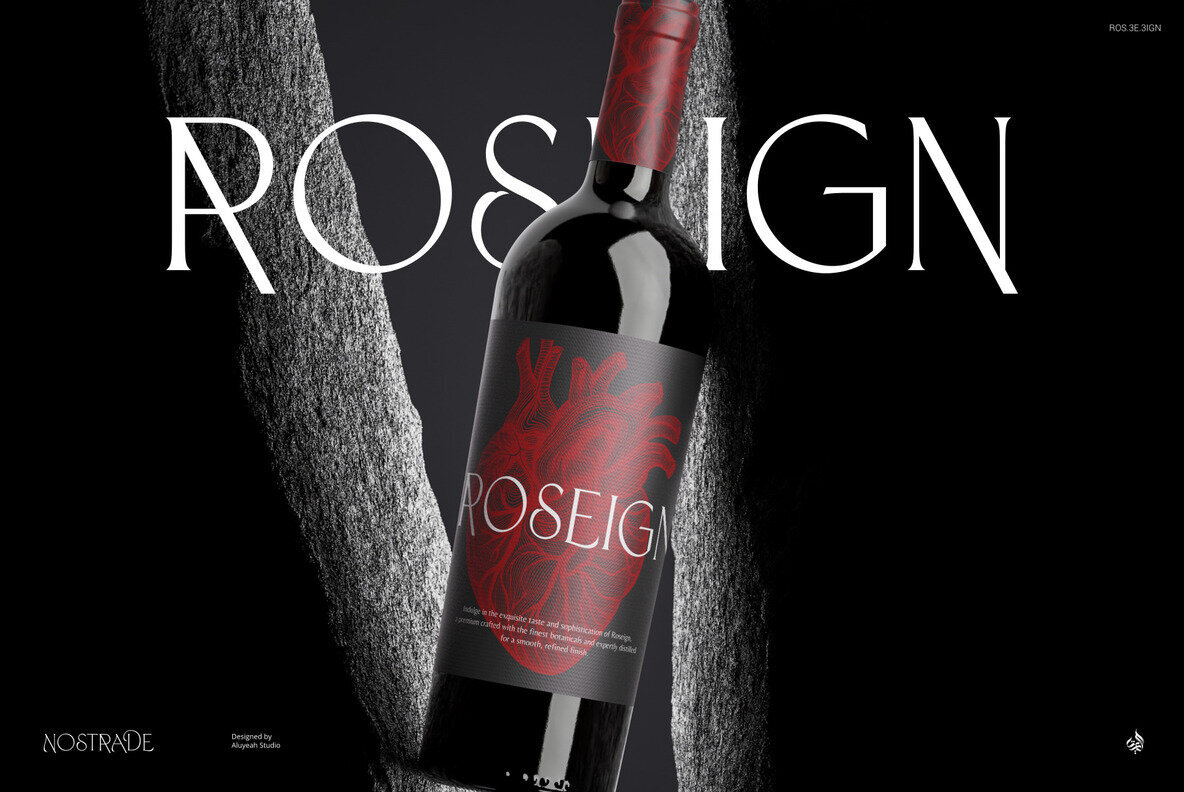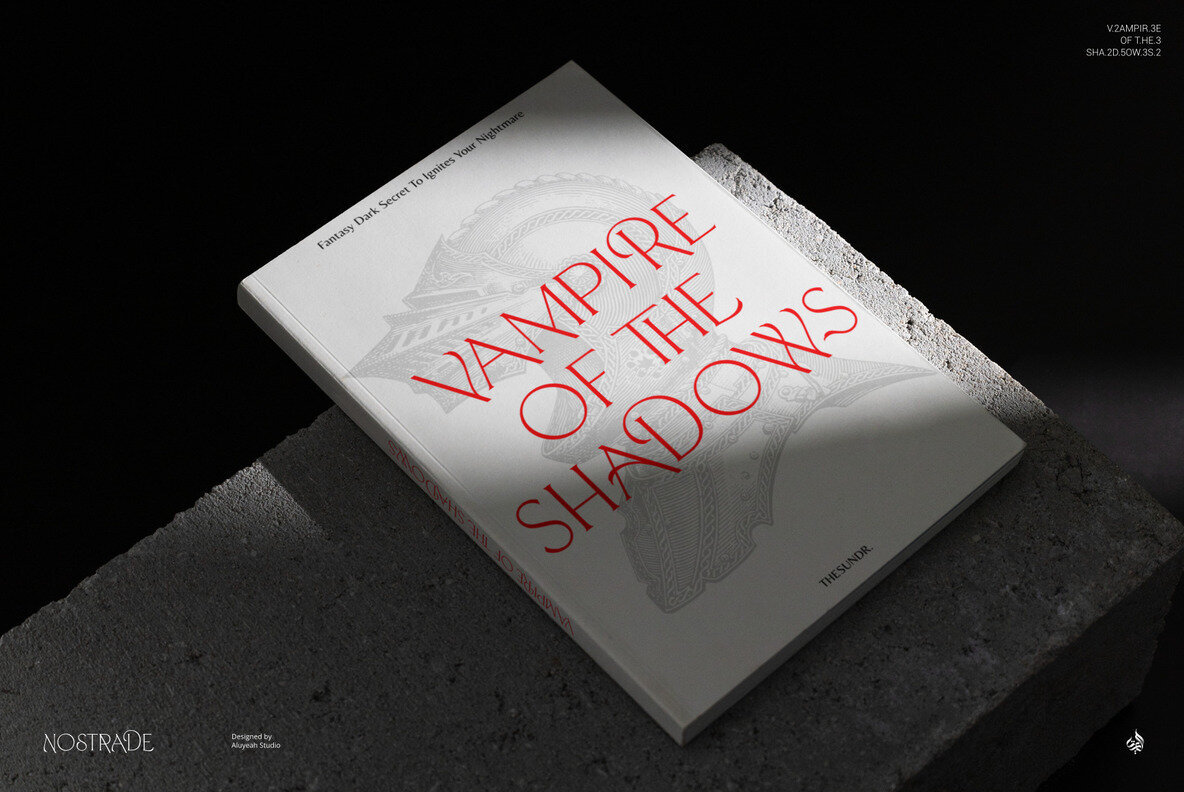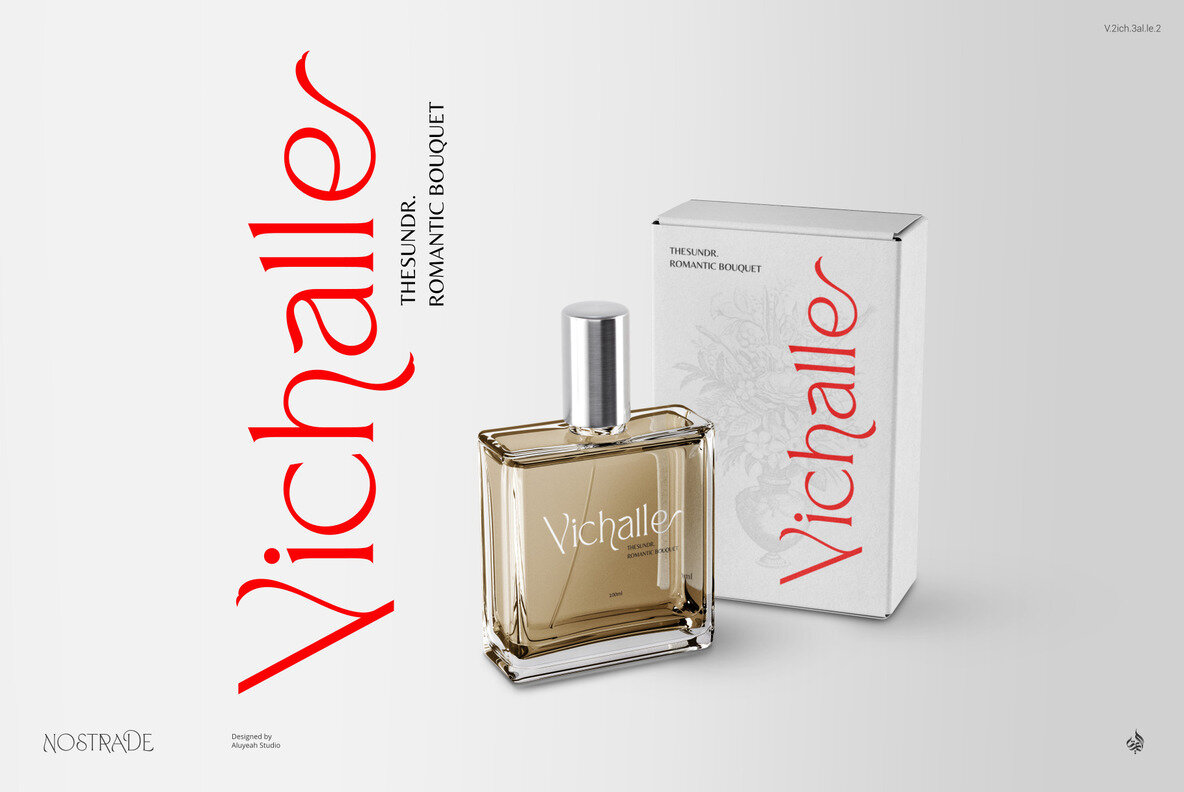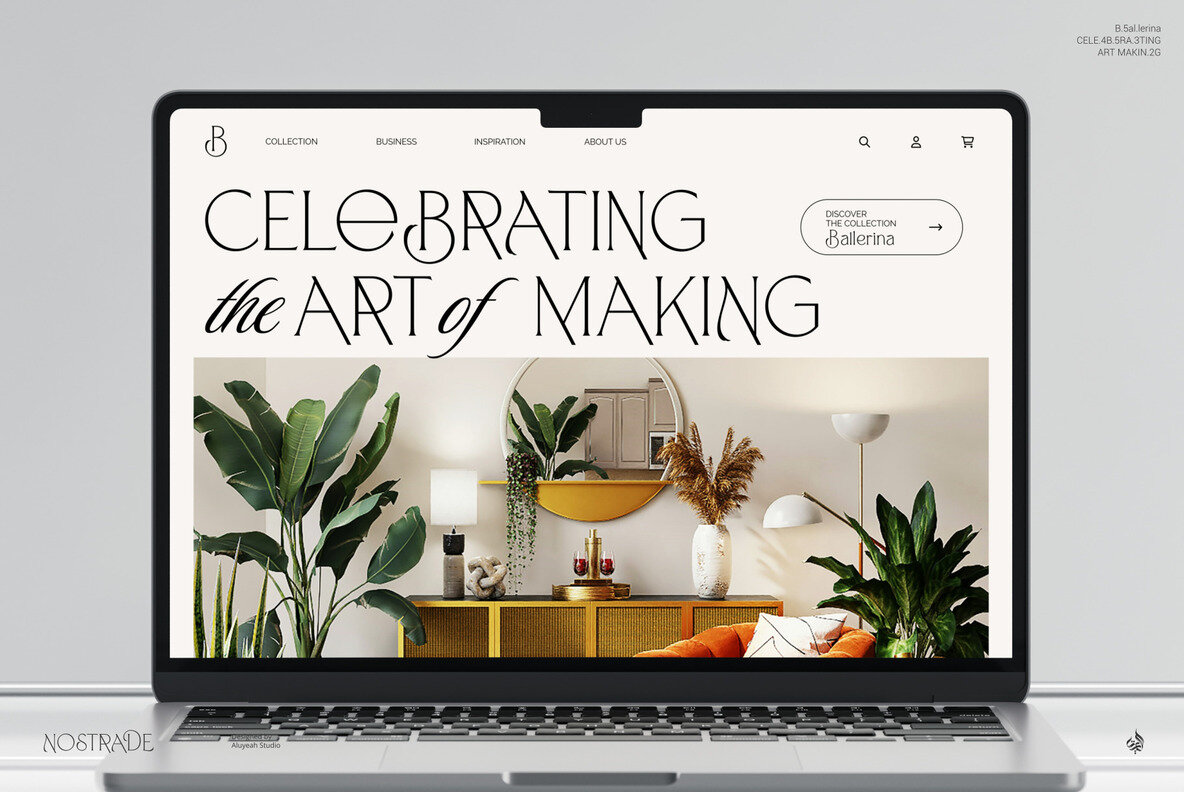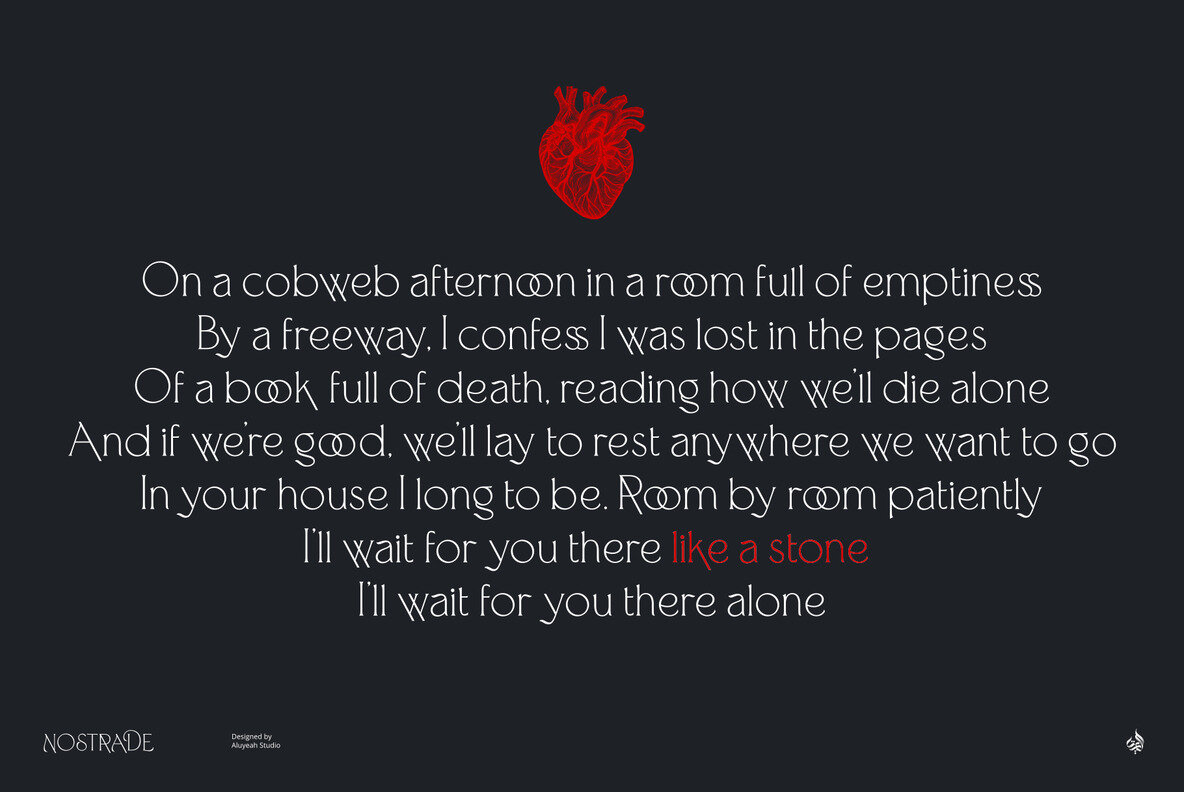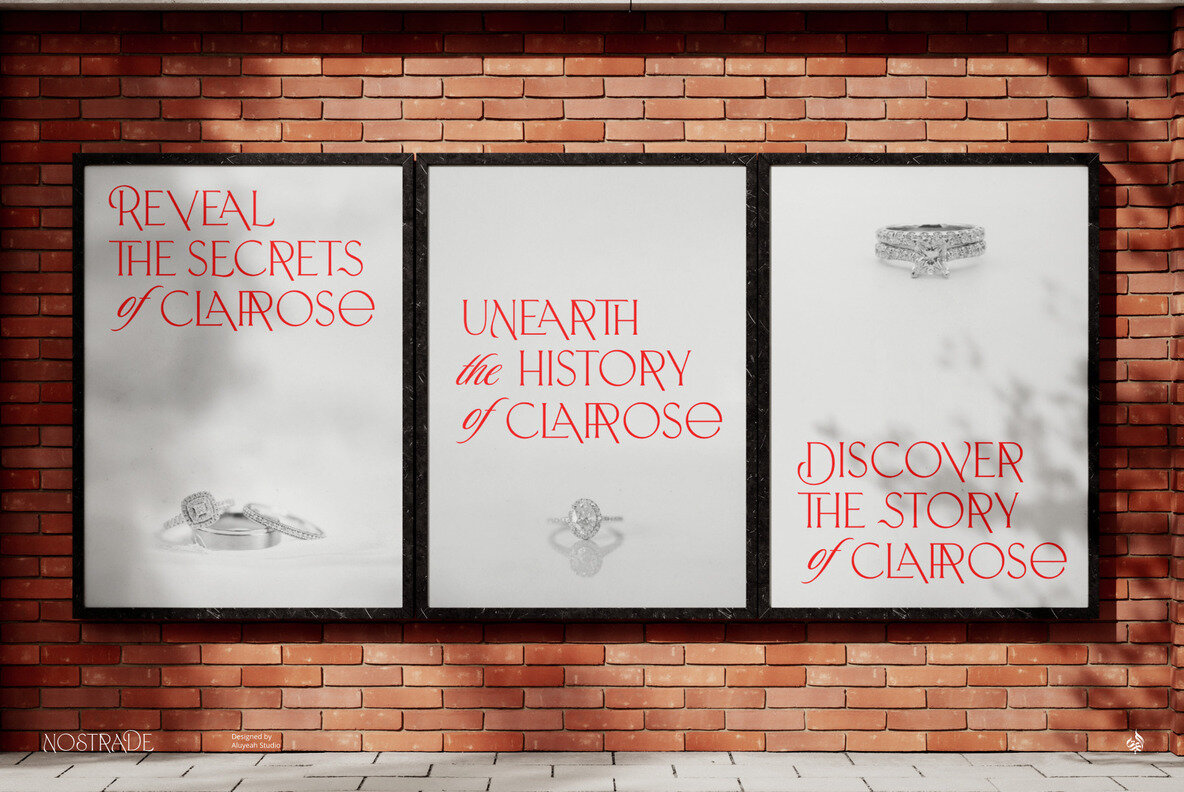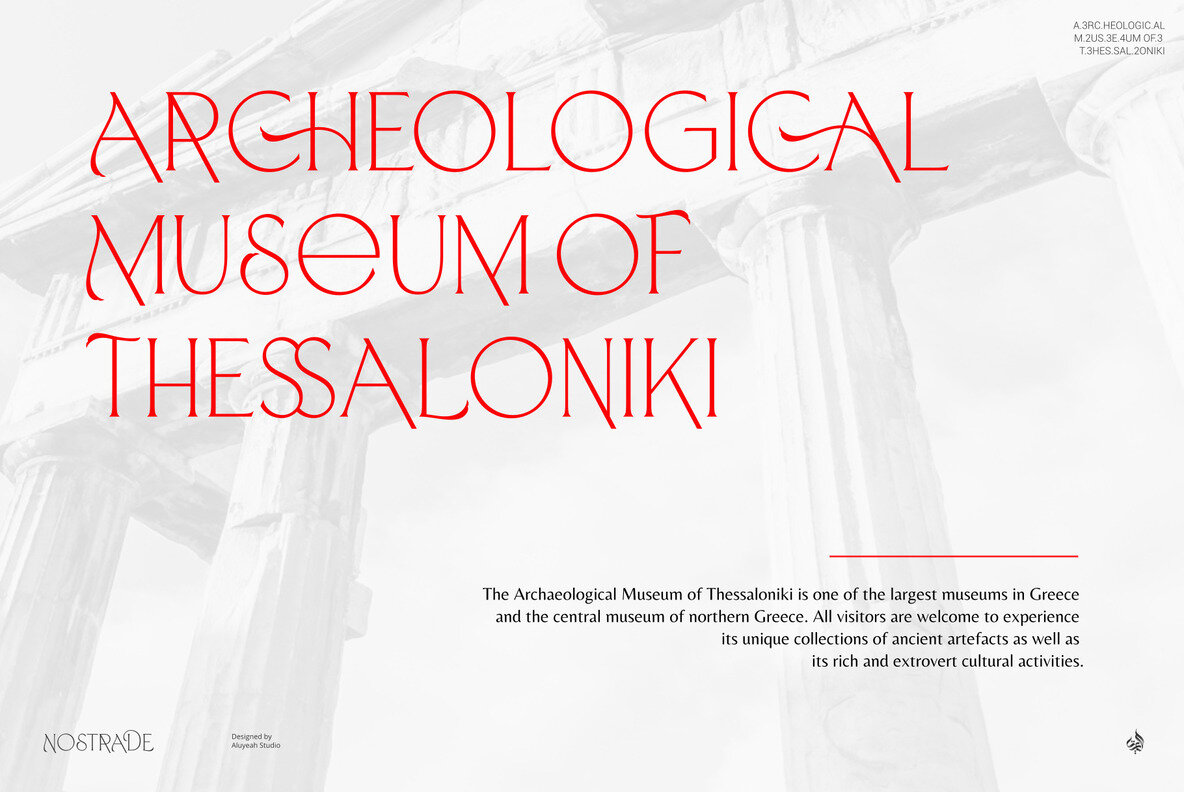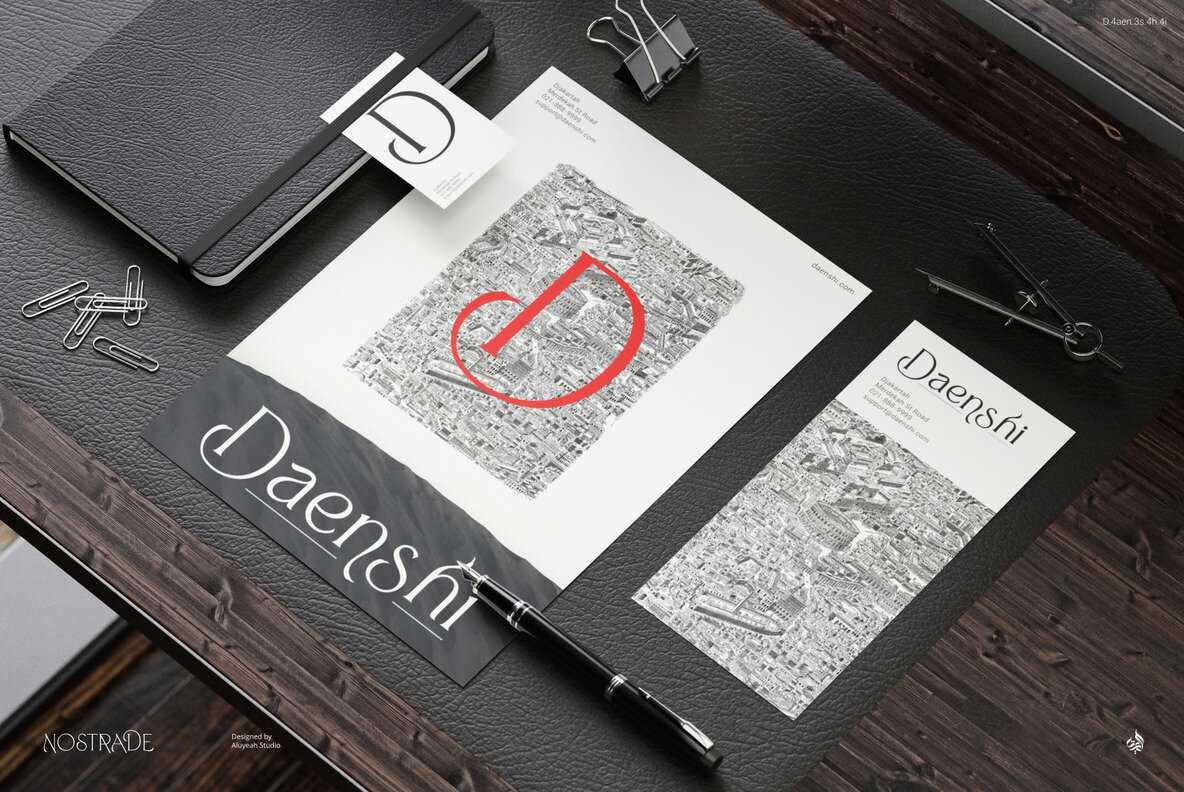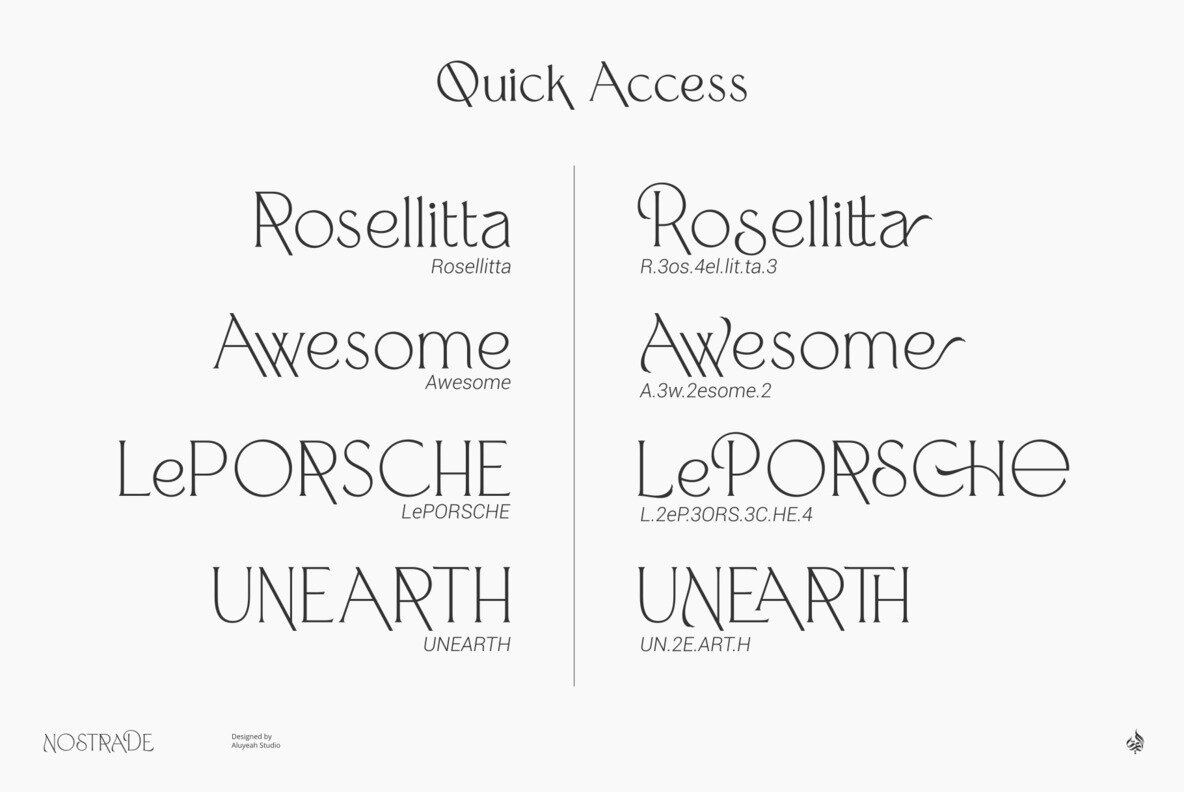
Nostrade Font
Introducing Nostrade - a unique display font designed to bring toughness and distinctiveness to your projects. Perfect for graphic and digital designers, Nostrade offers over 140 alternates and ligatures, giving you a diverse range of options to enhance your creativity. Available in four weights, the font allows you to quickly access alternate characters, ensuring you find the perfect match for your design needs. Nostrade is ideal for projects requiring a bold and authentic touch.
With intuitive quick access combinations like A.2, A.3, a.2, b.6, L.A, and T.H, you can effortlessly utilize alternates to achieve the desired look. For example, to replicate the preview styles, simply write N.2OS.3TRA.3D.5E.3 in your design software. Ideal for adding a unique vibe, Nostrade is the perfect addition to your font collection, making your designs stand out with a tough and intriguing aesthetic.